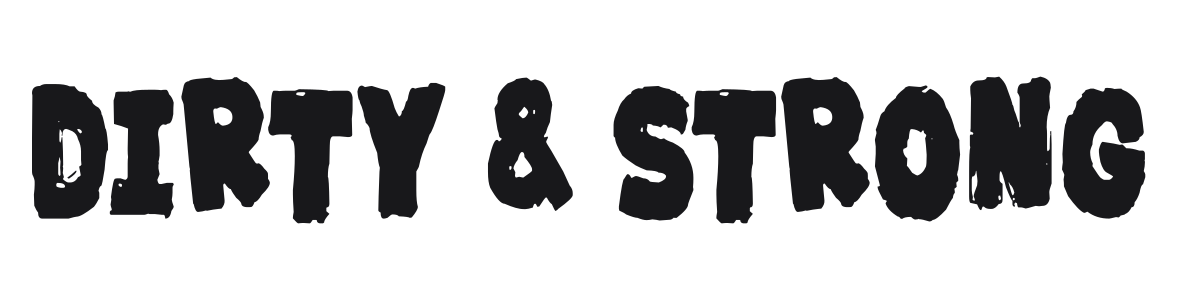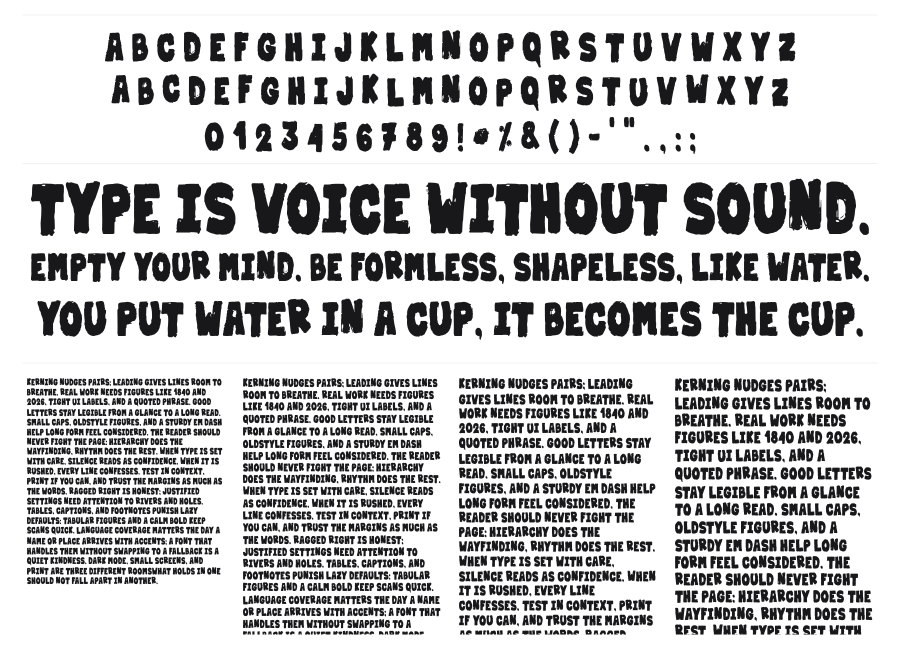
Dirty & Strong
Dirty & Strong is a heavy distressed display font by Woodcutter with chunky, eroded characters that look battered and worn. The rough, chipped edges give it an aggressive, underground quality that suits horror, punk, or metal aesthetics. Great for posters, album covers, and anything that needs visual grit.